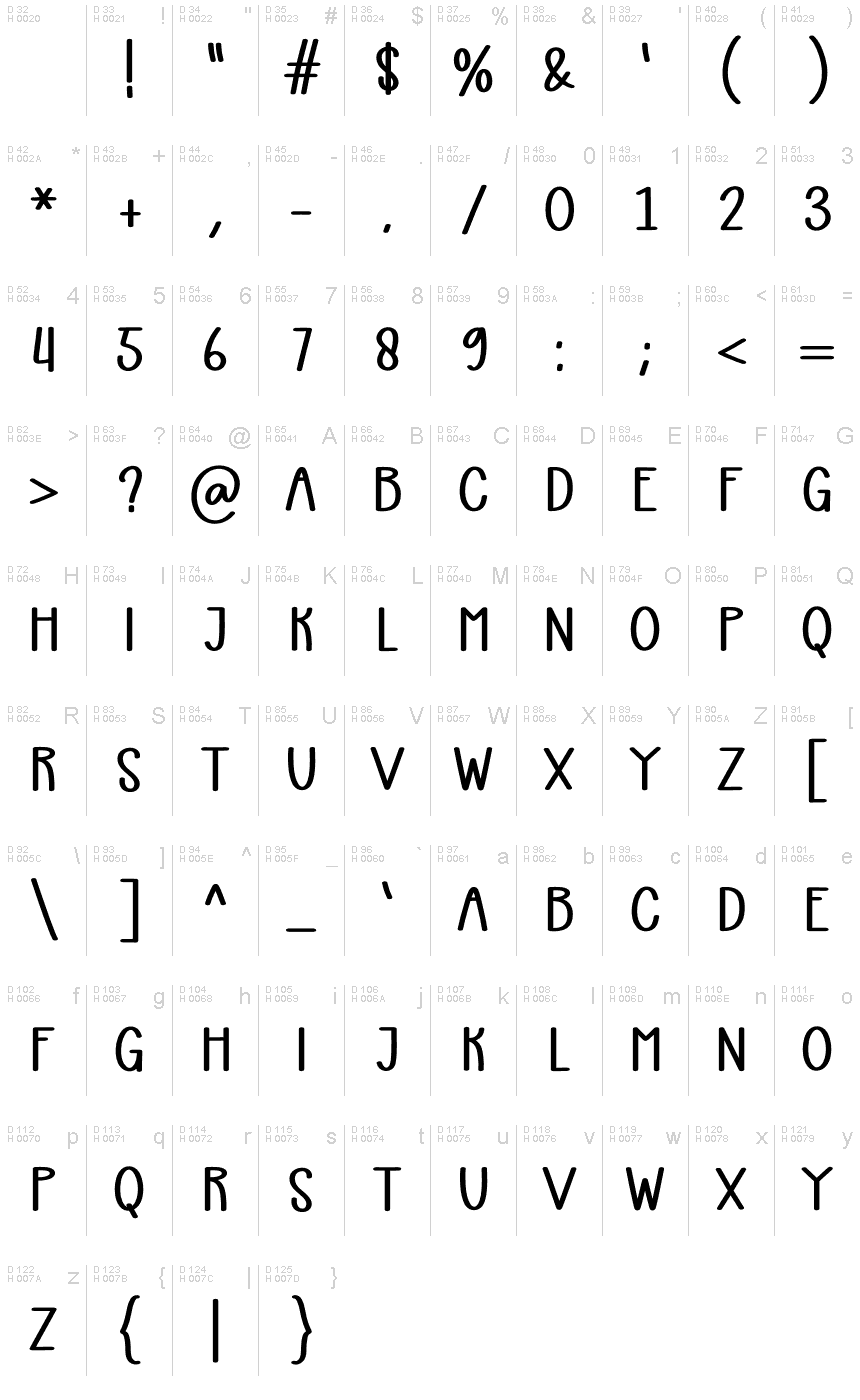
Very Happy Family
Very Happy Family is a playful display font designed by scratchones that exudes joy and happiness. With its semi-light weight, this font is perfect for adding a touch of whimsy to children's books, greeting cards, and branding for fun-loving businesses. Its unique letterforms and quirky design make it stand out from other display fonts, making it ideal for creating eye-catching logos or social media graphics. Use Very Happy Family to infuse your projects with a lighthearted energy that will leave viewers feeling cheerful and uplifted.
the latest style letters are perfect for wall displays, wedding invitations, social media post logos, advertisements, product packaging, product designs, labels, photography, watermarks, invitations, stationery, and any project that requires taste handwriting.